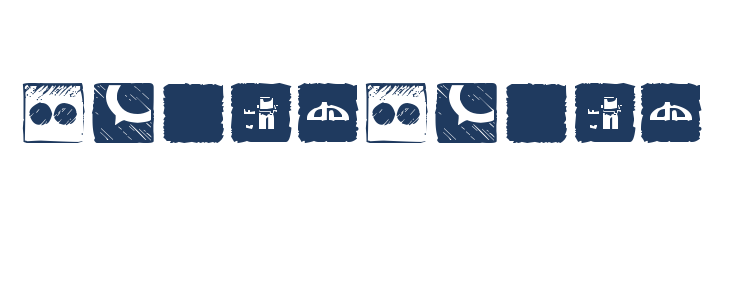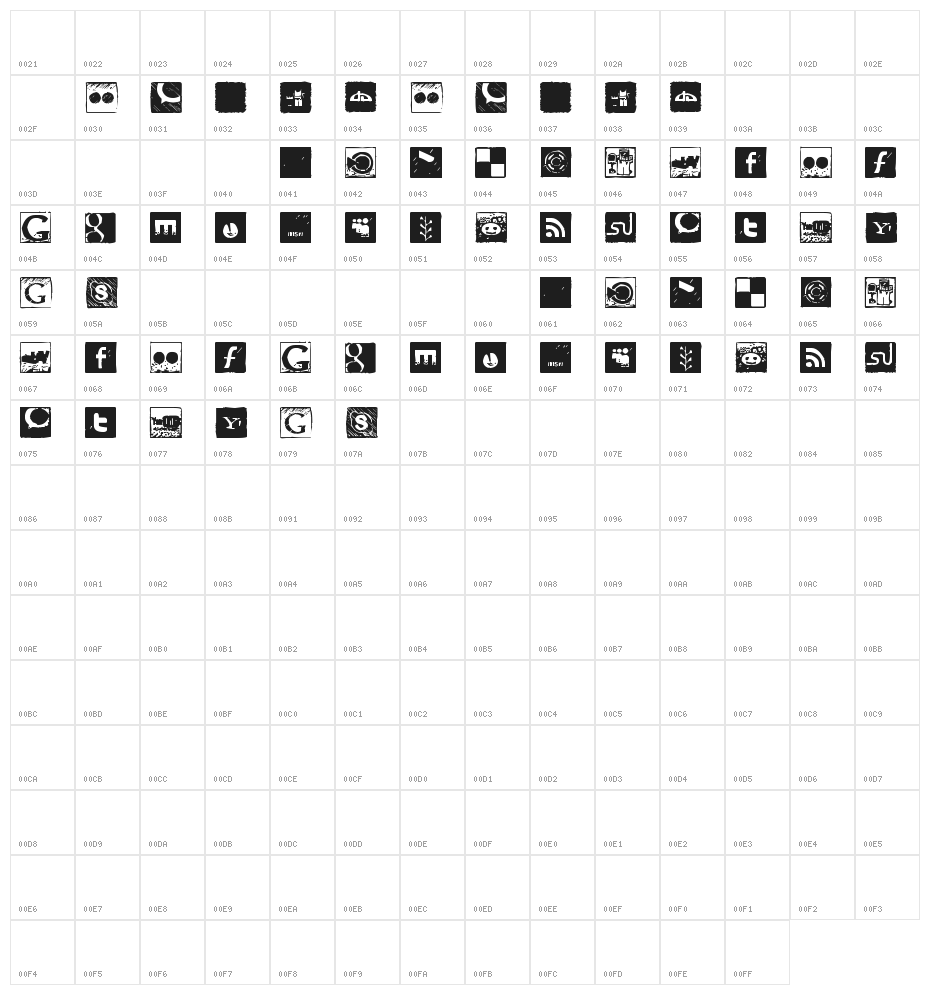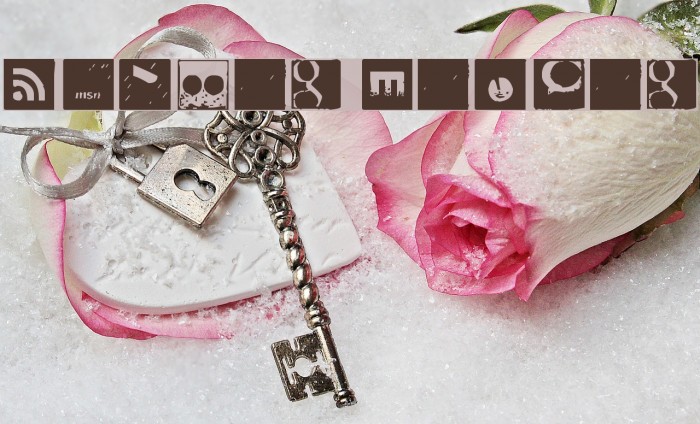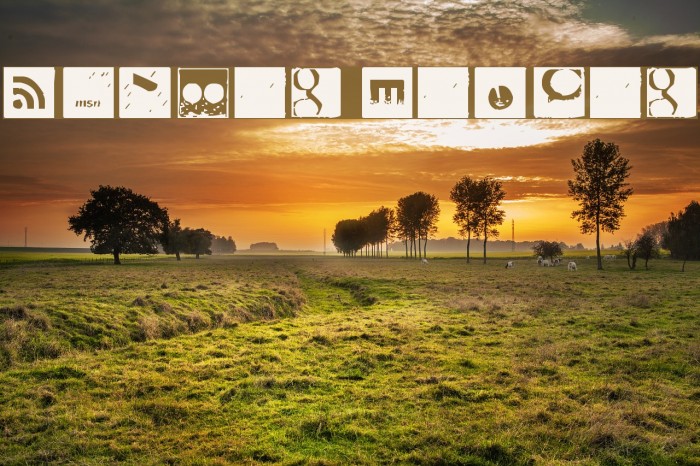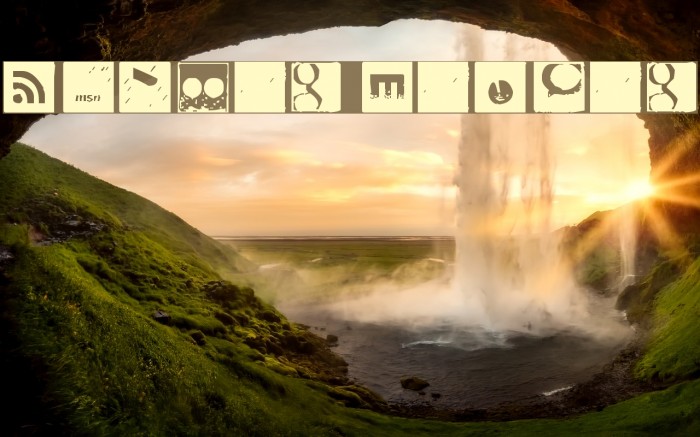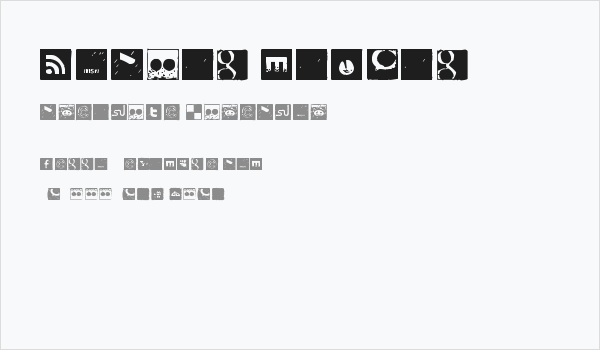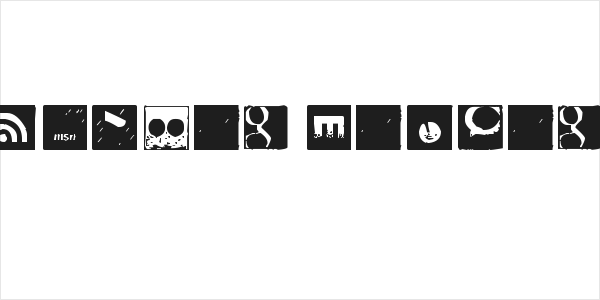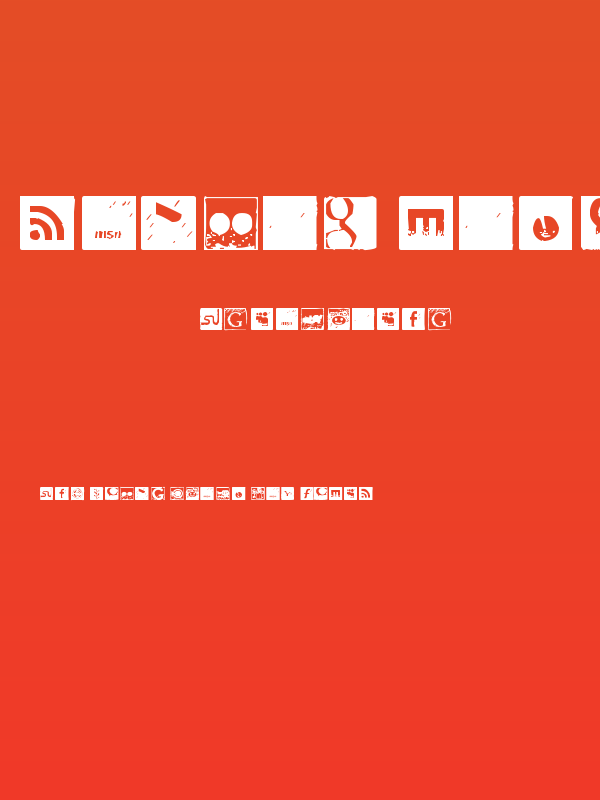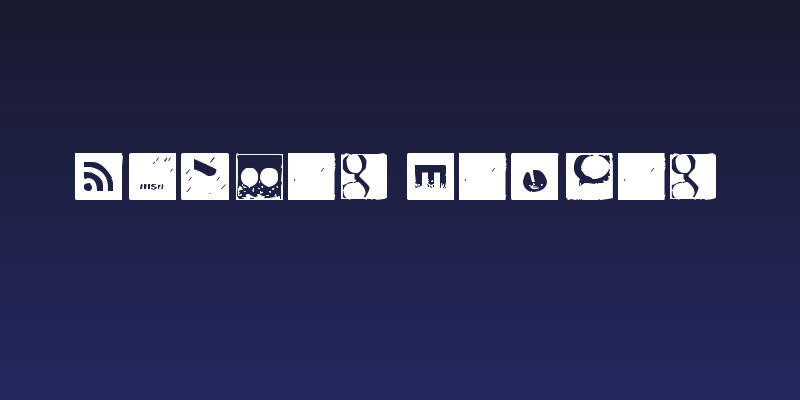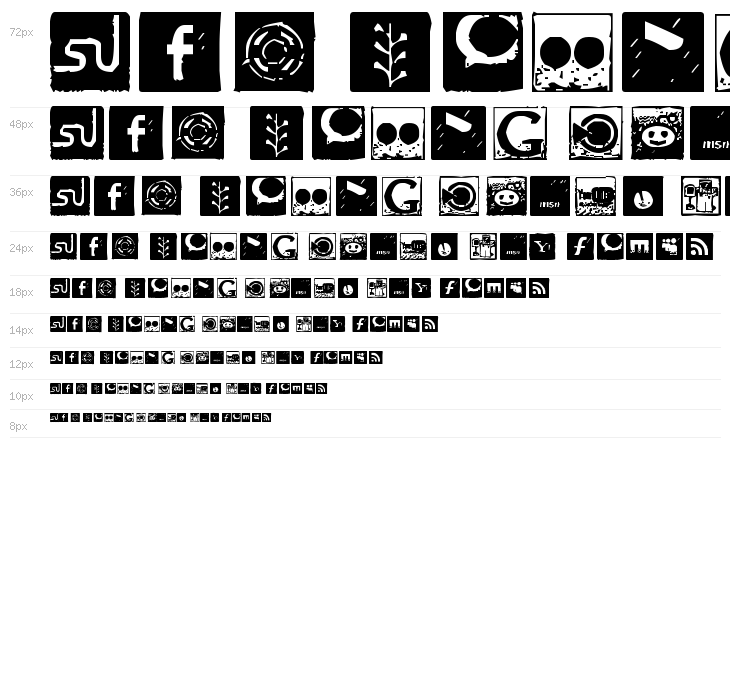
Social Manual Font
Social Manual Description
A decorative display font featuring grungy, hand-drawn social media and web-related icons inside rough square backgrounds. The icons are bold, high-contrast, and have a distressed, sketch-like texture, giving a casual and urban feel.
| Overall Style | Decorative, Grunge, Urban |
| Use Case | Logos, Icons, Headlines, Social media buttons |
| Proposed Projects | Web design, posters, digital marketing materials, social media graphics, event flyers. |